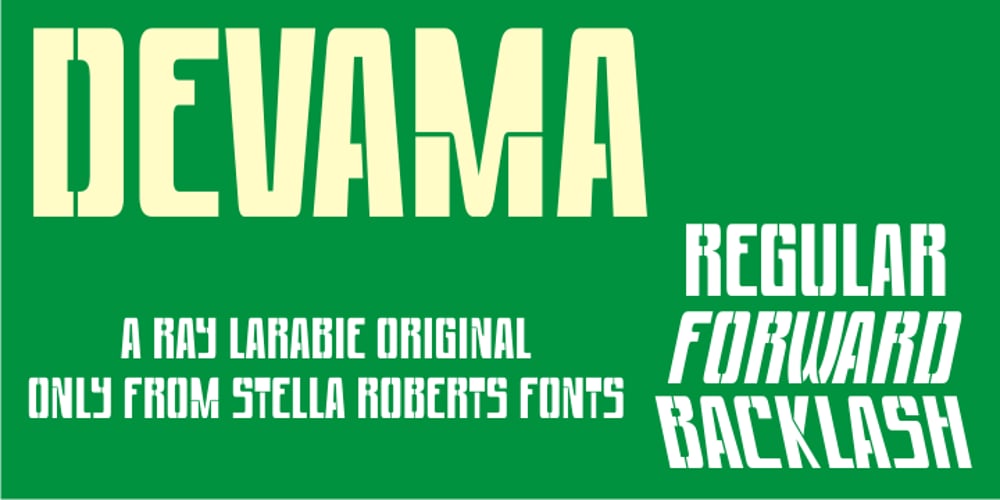
Devama SRF
Devama SRF font
Devama SRF Font Family was designed by published by Stella Roberts Fonts. Devama SRF contains 3 styles and family package options. Devama SRF was designed by Typodermic’s Ray Larabie and provided for Stella Roberts Fonts. Available in Regular, Backlash and Forward, this typeface evokes a retro-80s look while still remaining clean and fresh. The net profits from my font sales help defer medical expenses for my siblings, who both suffer with Cystic Fibrosis and diabetes. Thank you.